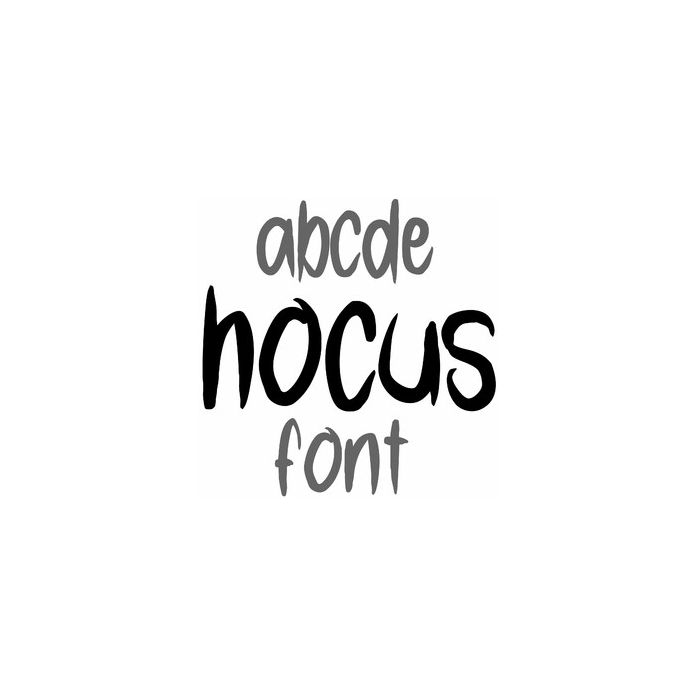
Halloween font, Hocus, is fun for spooky fall crafts, monograms, t-shirts, bags, signs, cards, decorations, stickers, mugs, and personalization projects. Includes alphabet, numbers, and punctuation.